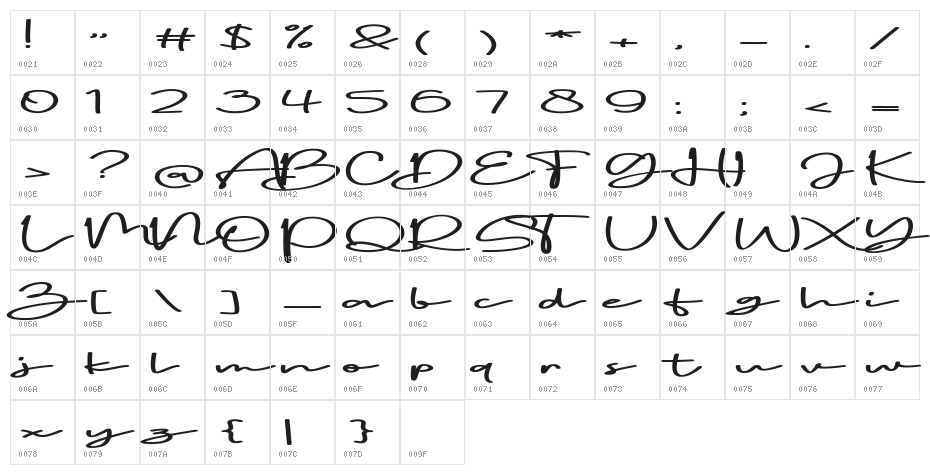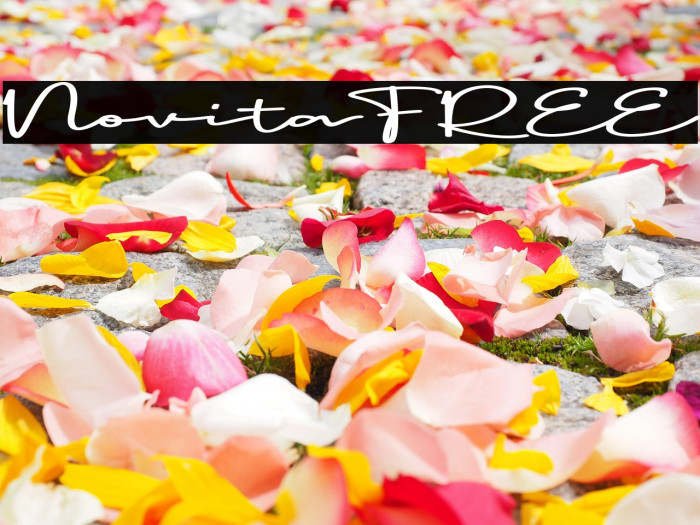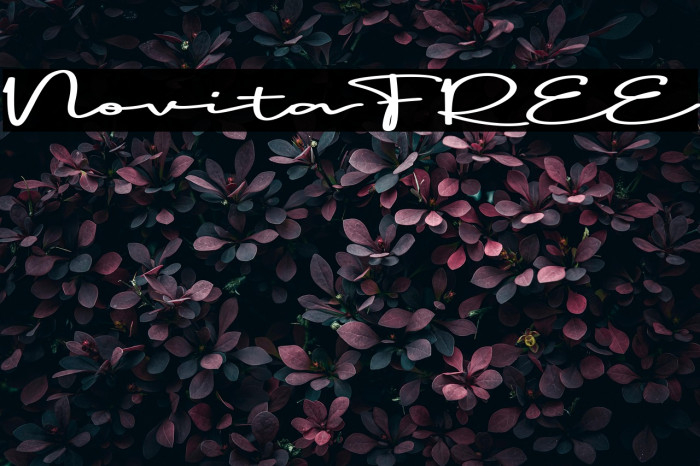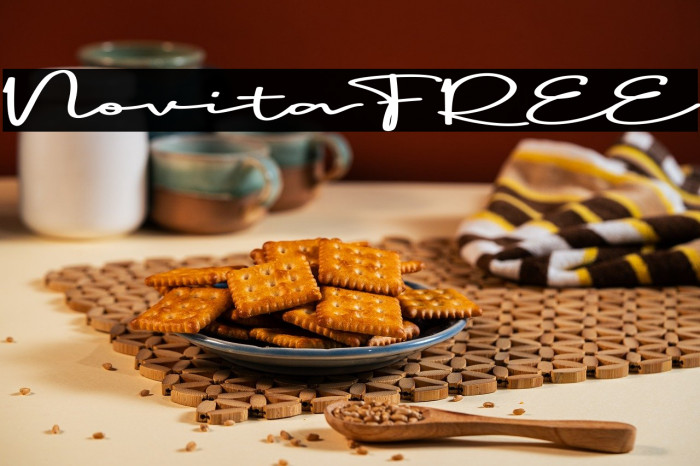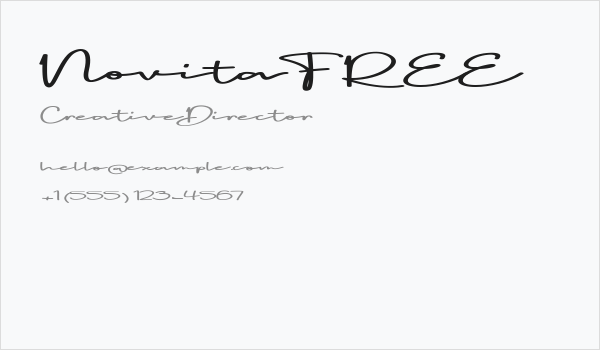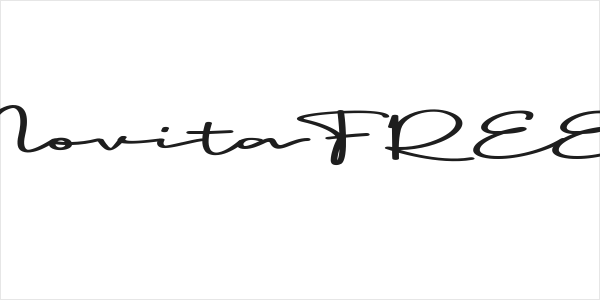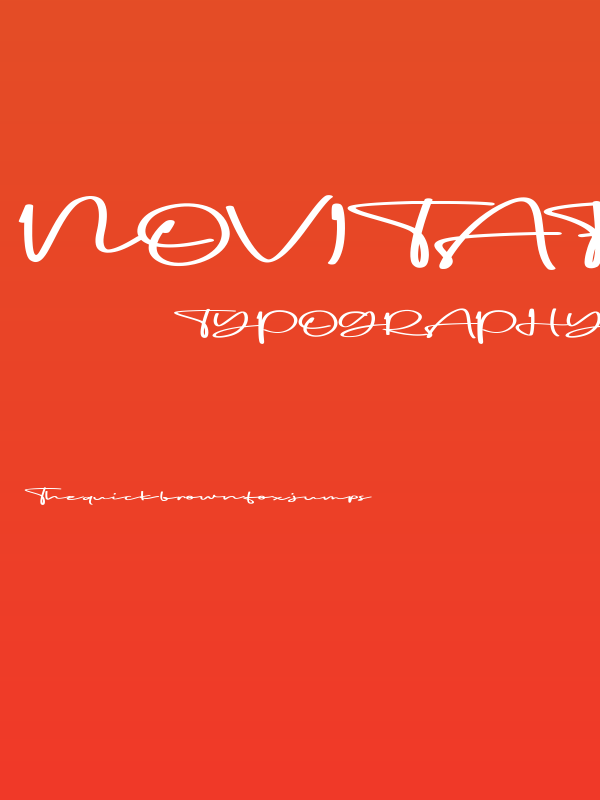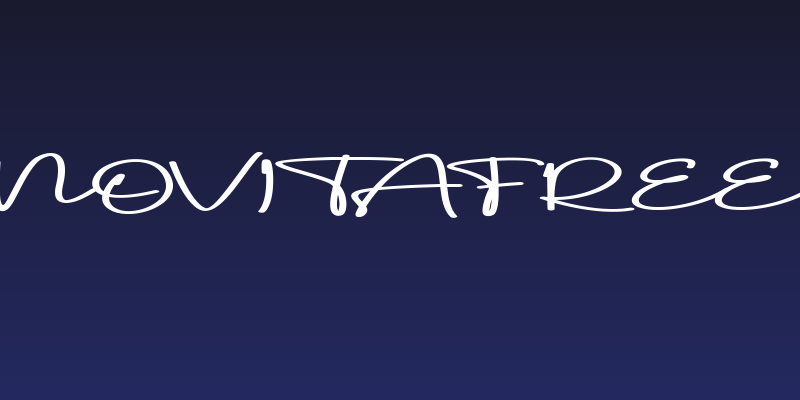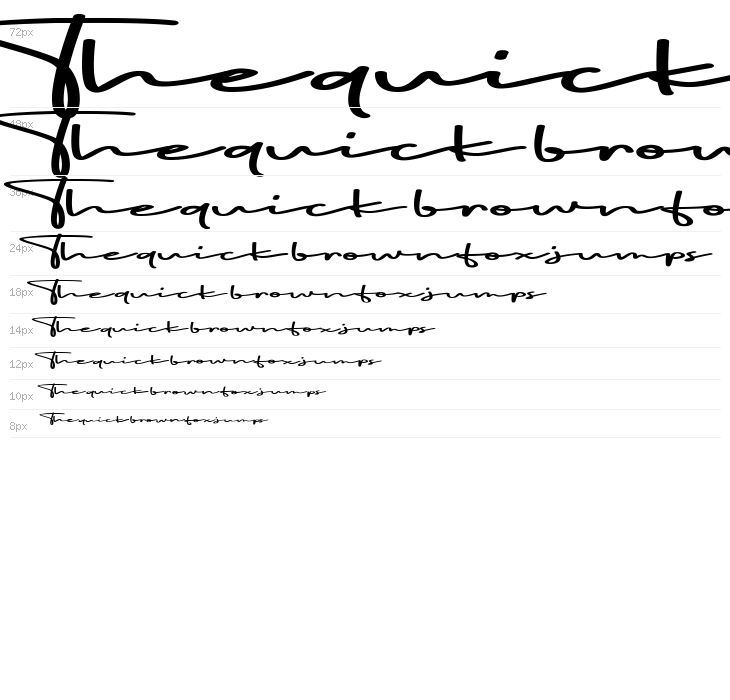
Novita FREE Font
Novita FREE Description
A casual handwritten script font with smooth, flowing lines and connected characters, mimicking natural handwriting. The strokes are consistent in thickness, with rounded terminals and a playful, informal appearance. Uppercase and lowercase letters are both present, with numerals and a full set of punctuation.
| Overall Style | Casual, Decorative, Playful |
| Use Case | Logos, Headlines, Social media, Invitations |
| Proposed Projects | Greeting cards, invitations, social media graphics, personal branding, quotes. |